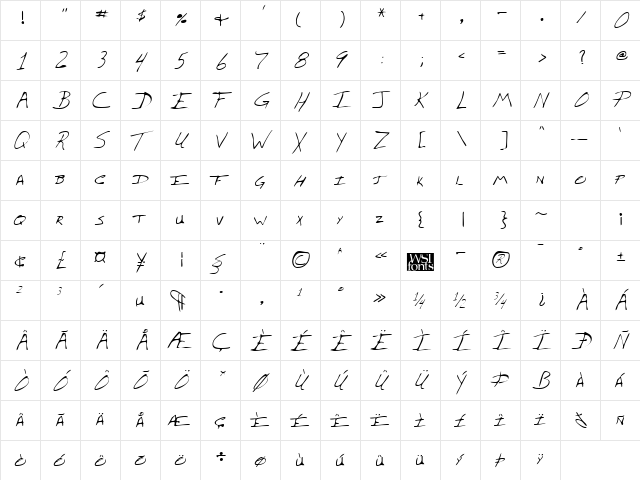
BurtonsHand Regular
Design Context for BurtonsHand Typeface
BurtonsHand flows with the natural rhythm of handwritten lettering, making it ideal for designs that call for warmth and personal expression.
Font Pairing: Combine BurtonsHand with a simple geometric sans for maximum contrast — the tension between flowing curves and clean structure is a classic typographic pairing.
Pro Tip: Use BurtonsHand for short runs of text — names, titles, or taglines. Extended body copy in script faces tires the eye quickly.